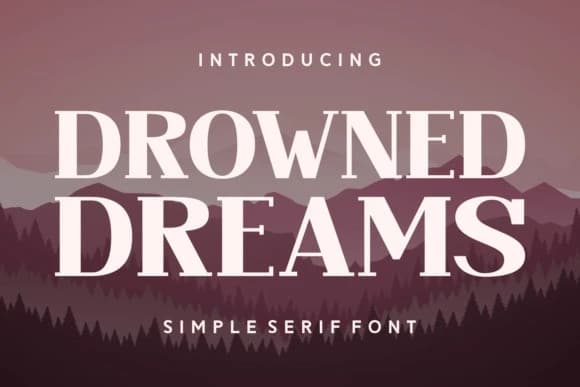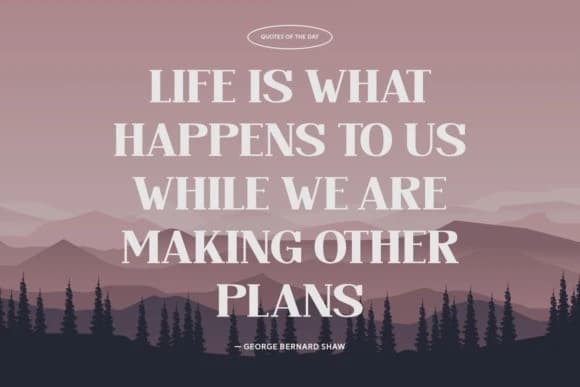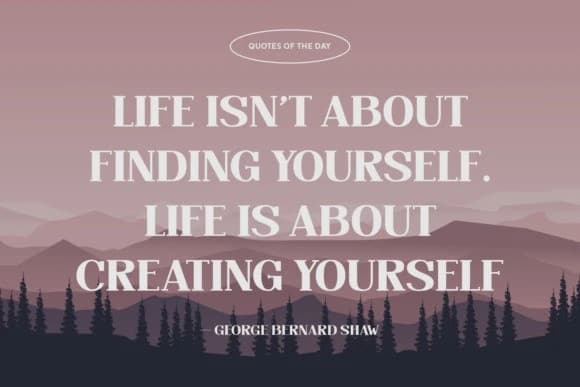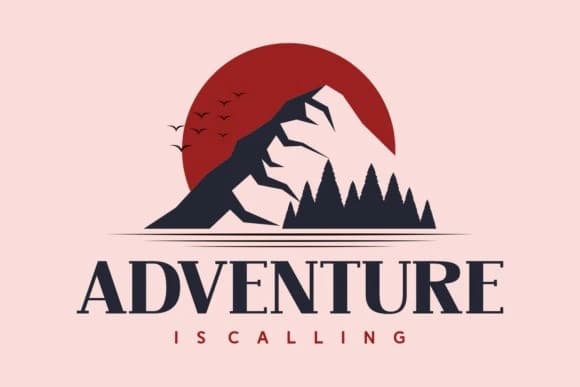
Drowned Dreams Font
Drowned Dreams Font, an incredibly refined serif font that exudes an air of elegance and modernity. It serves as the perfect complement to your photography projects or for adding that accentuated touch of authenticity to your apparel.